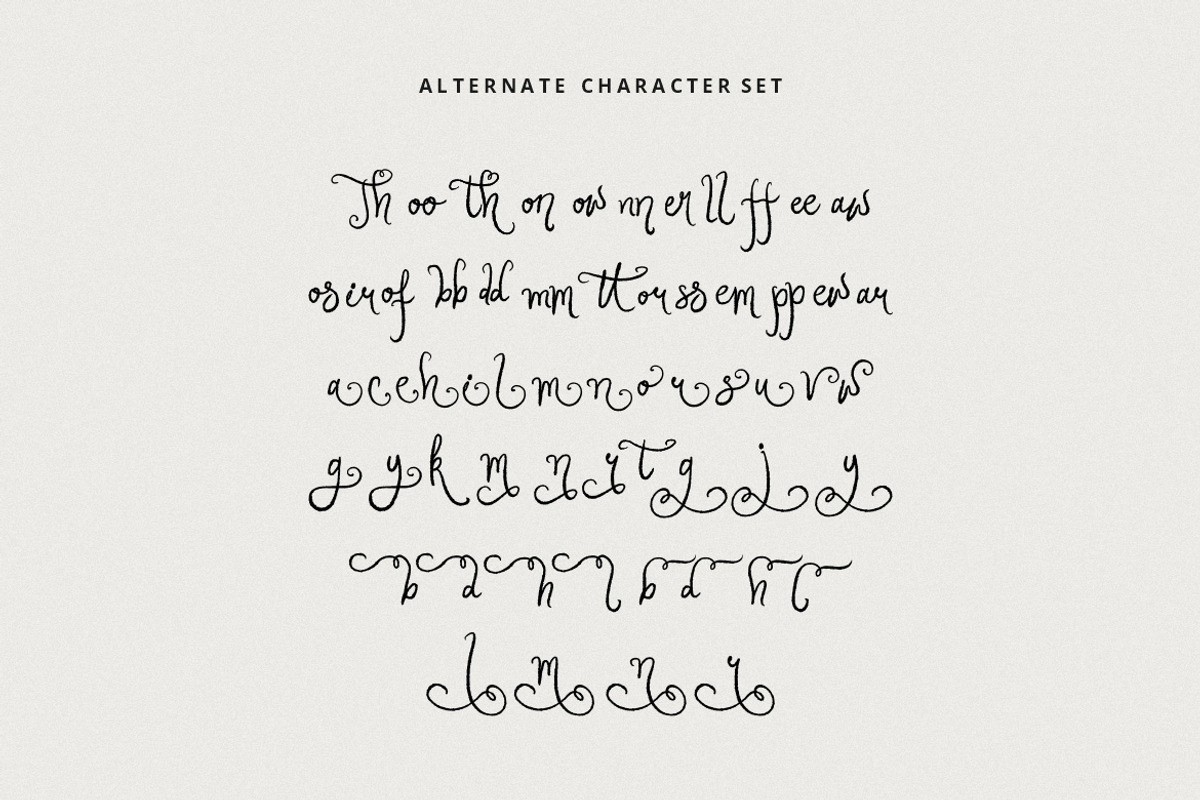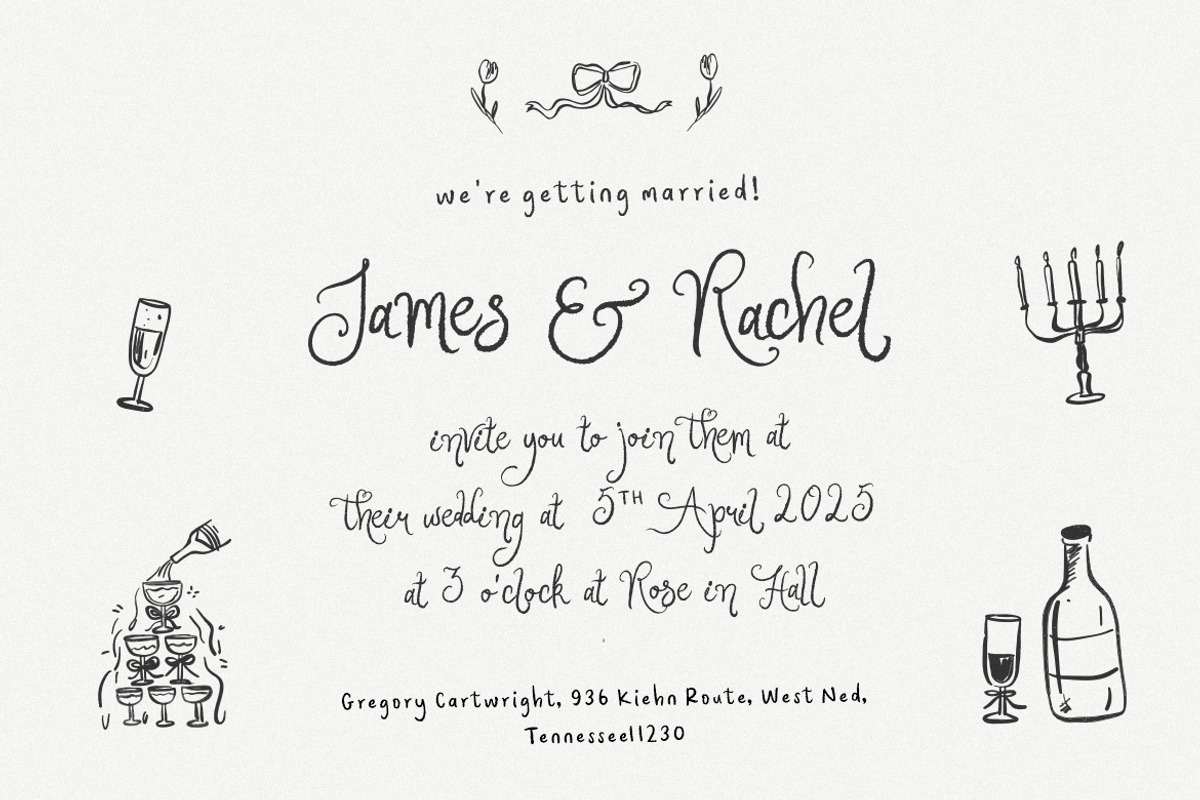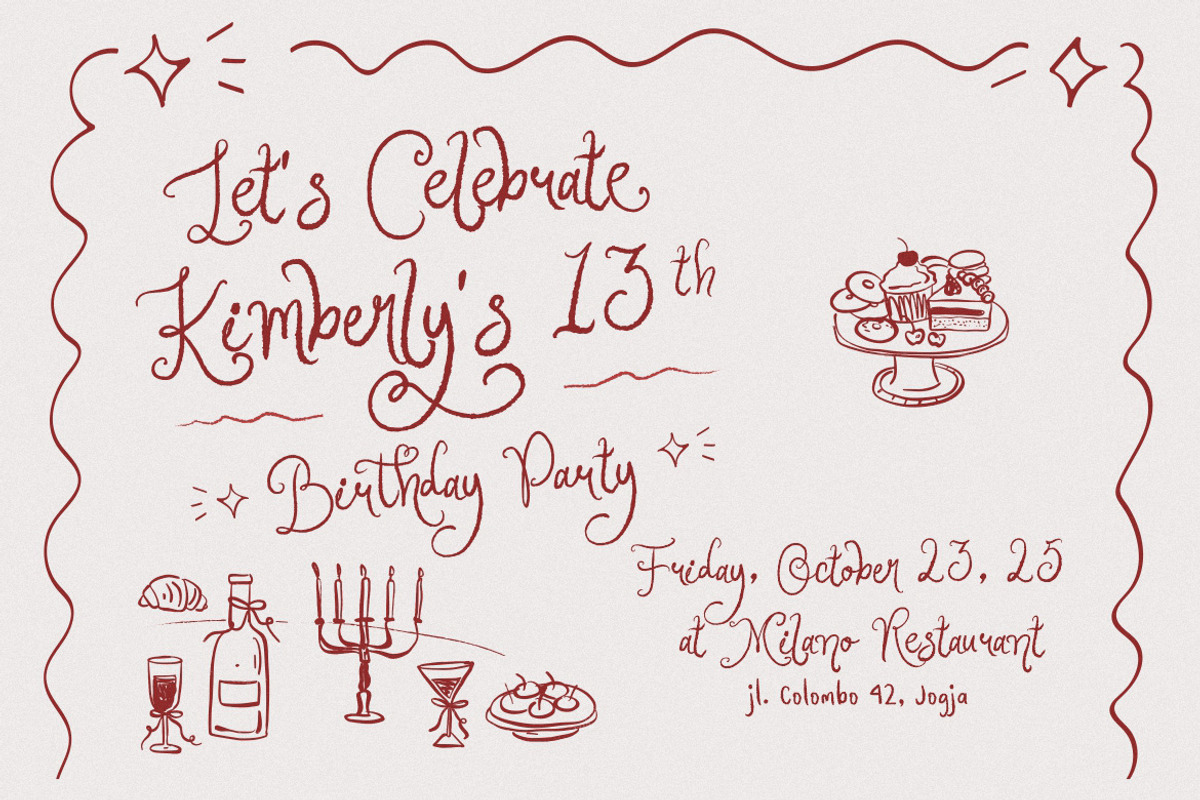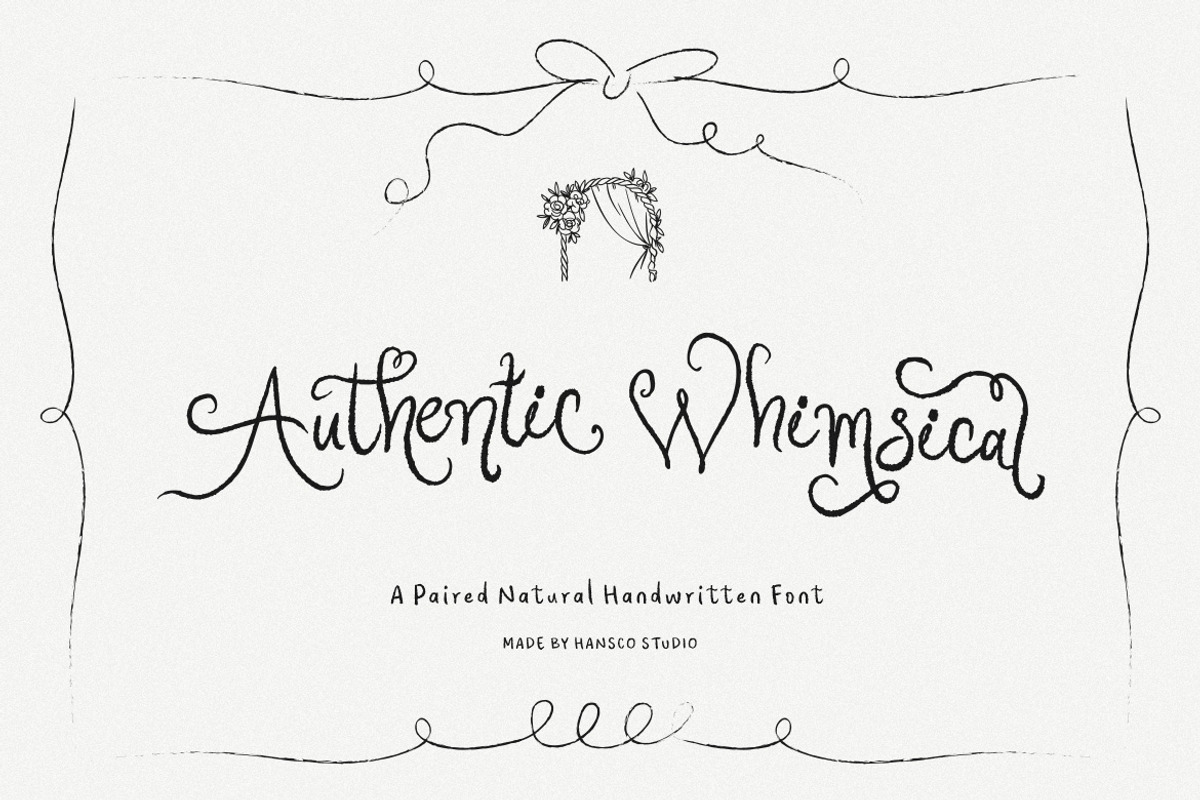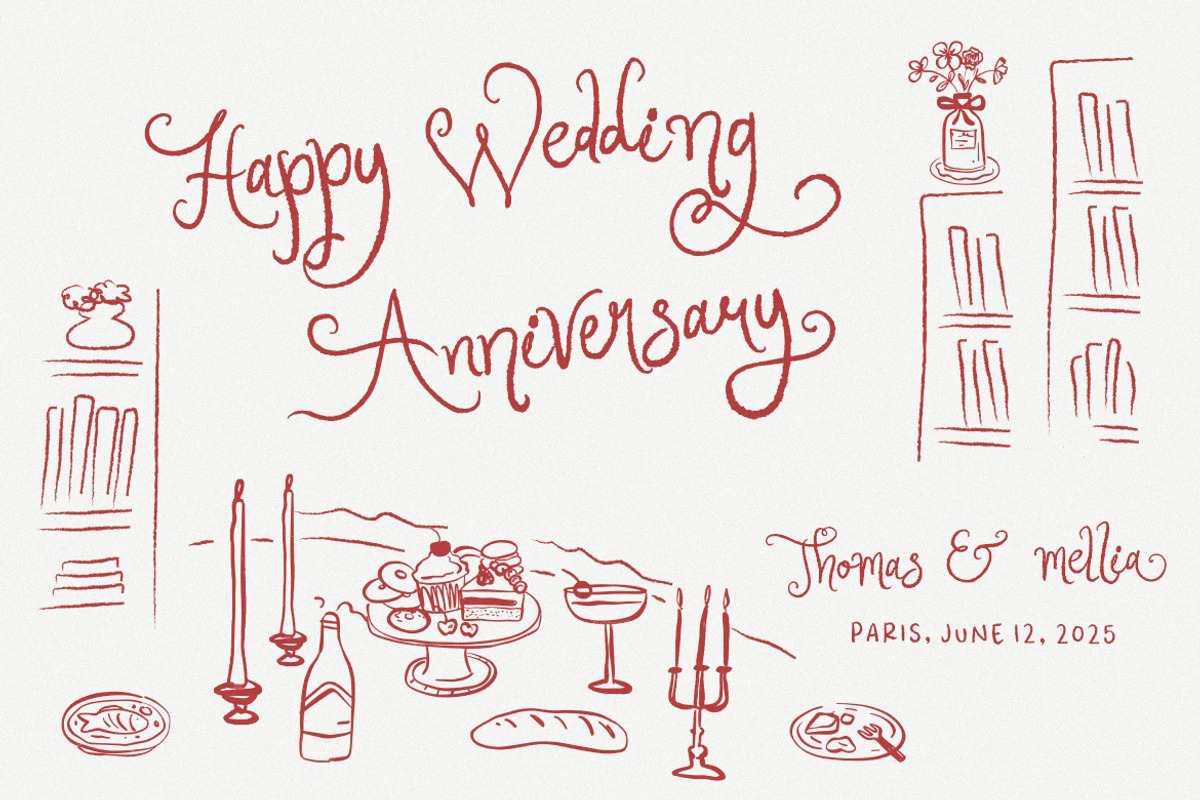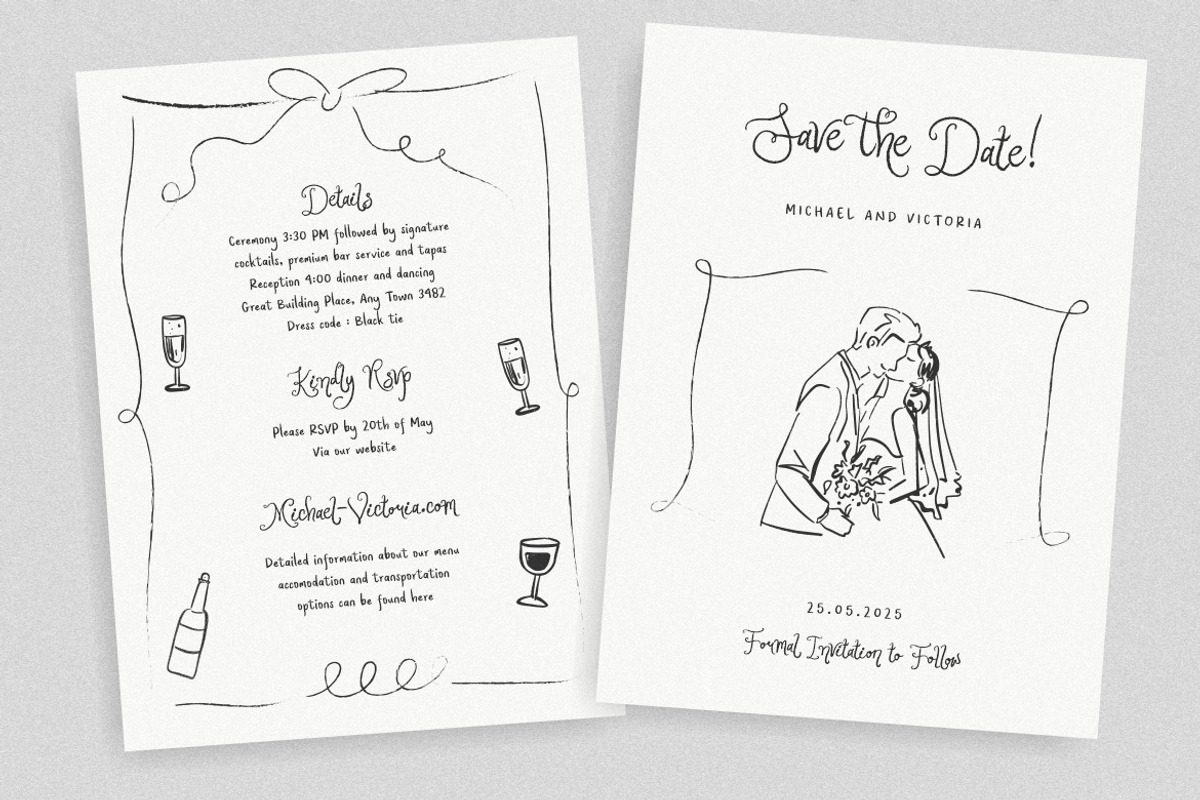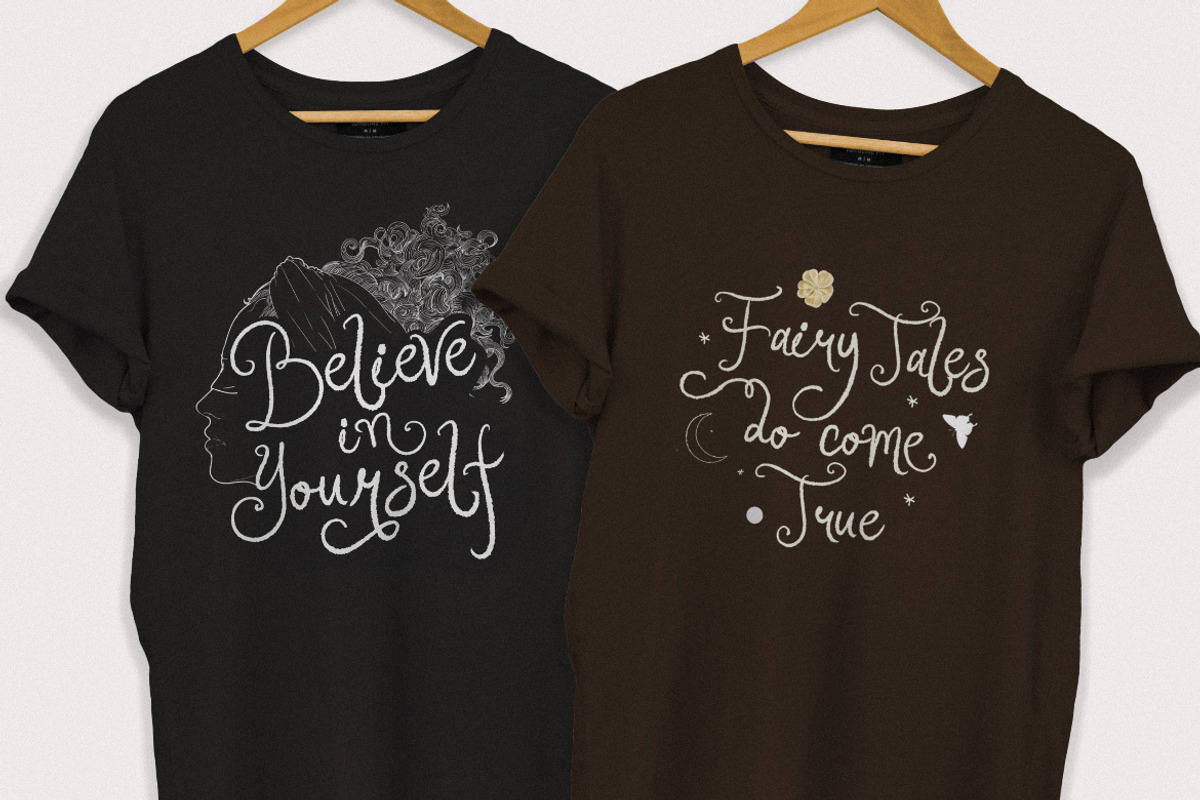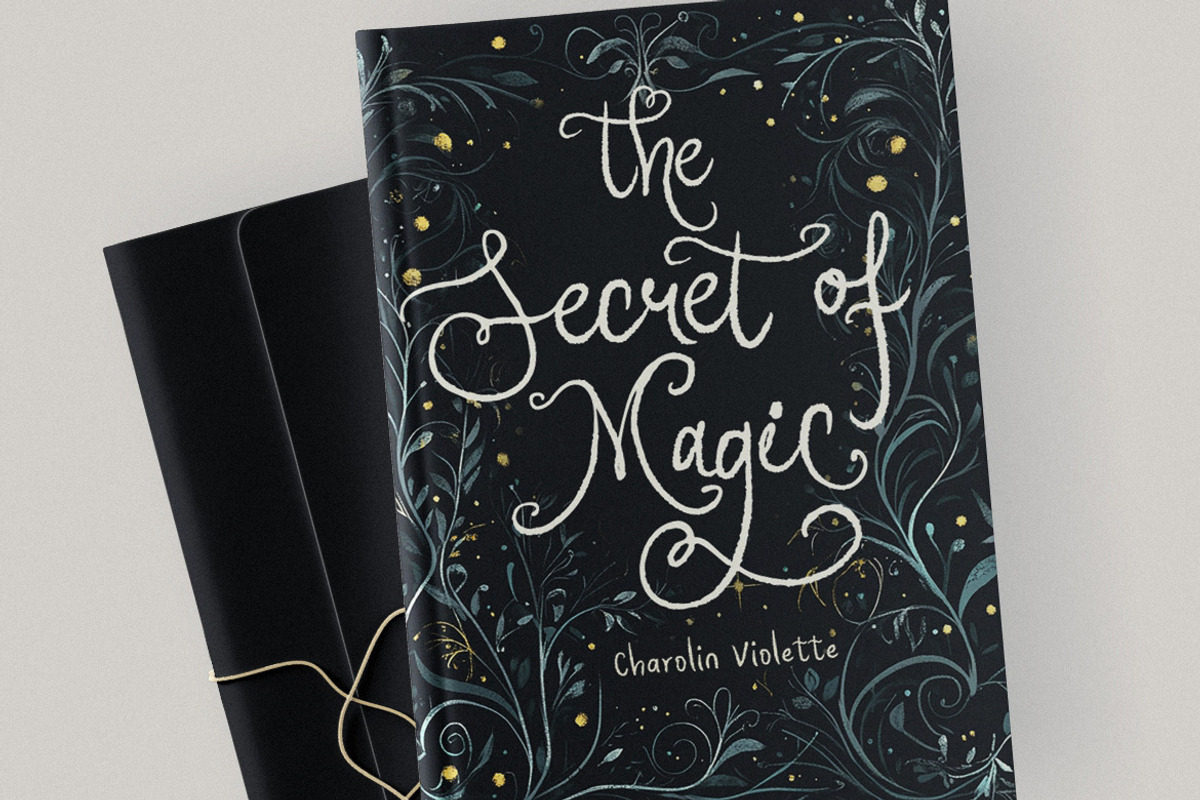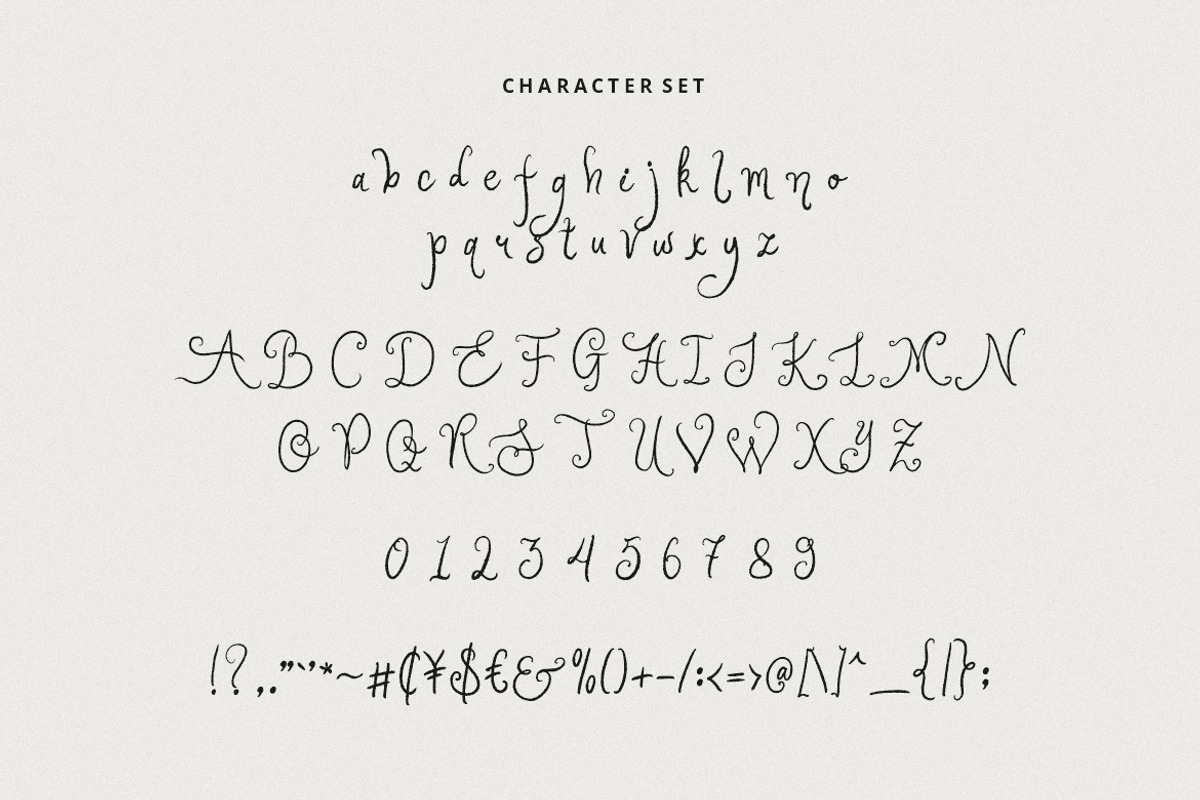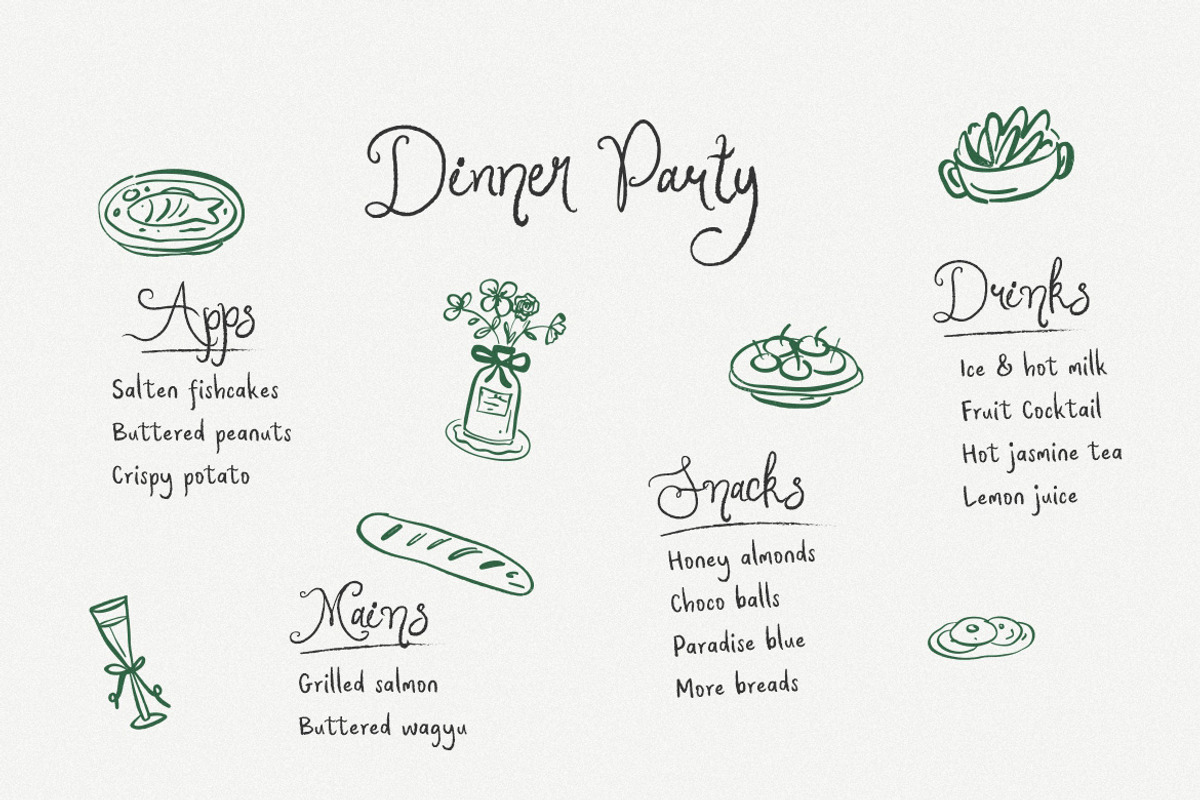
Authentic Whimsical Font
Authentic whimsical is a gorgeous and elegant curly font with an incredibly magical feel. It features gorgeous and mysterious swashes and ligatures that make this script incredibly versatile. Whether you’re looking for fonts for Instagram, Canva, Cricut, calligraphy scripts, or magic-wizard themed projects, Authentic Whimsical font will turn any creative idea into a true piece of art. You will also get a combination font of hand drawn sans type in this package. To get an alternate character, you can use the Character Map on Windows and the Font Book on Mac, to use it just copy - paste it into the canvas in the design software you use.
- uppercase, lowercase
- alternates
- 2 Font Styles